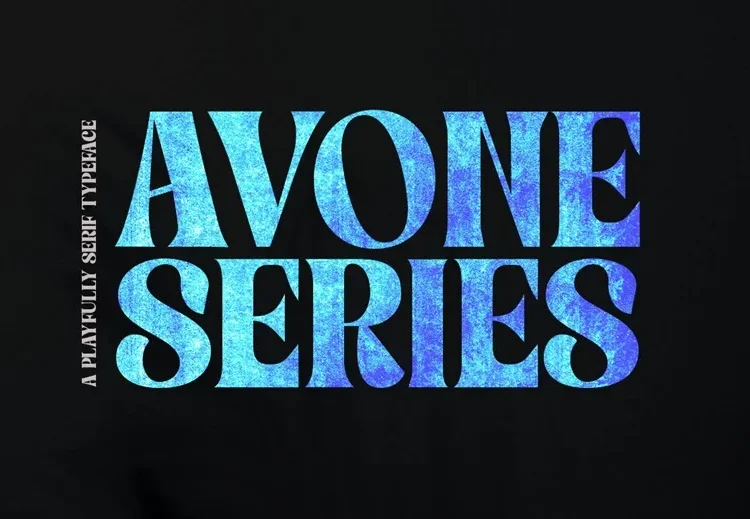
Avone Series Font
Avone Series is a charming serif typeface with a vintage flair, combining playful design with a clean letterpress style. This series includes the original Avone font alongside the Avone Series, offering regular fonts complemented by additional ligatures and symbols. Its versatile nature makes it an ideal choice for various branding applications, including logos, banners, advertisements, and t-shirt designs.
The font’s nostalgic yet refined style enhances its usability, effortlessly blending classic typography with modern design needs. Whether you’re working on promotional materials or creative projects, Avone Series delivers a distinctive touch that captivates attention and leaves a lasting impression.
Perfect for elevating your designs, Avone Series is a must-have for designers seeking a blend of vintage aesthetics and contemporary functionality.